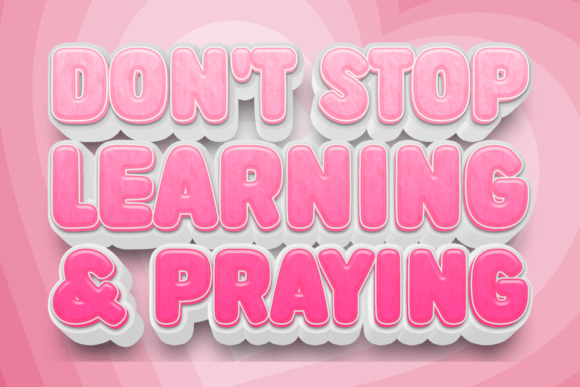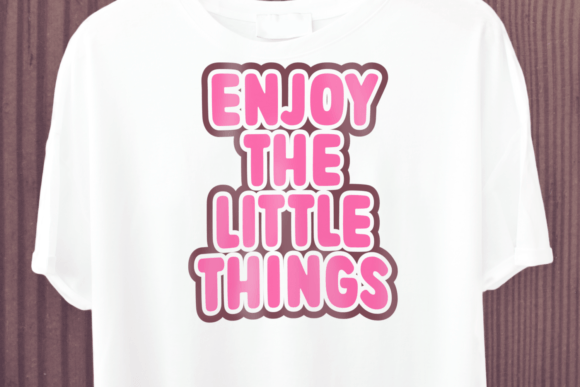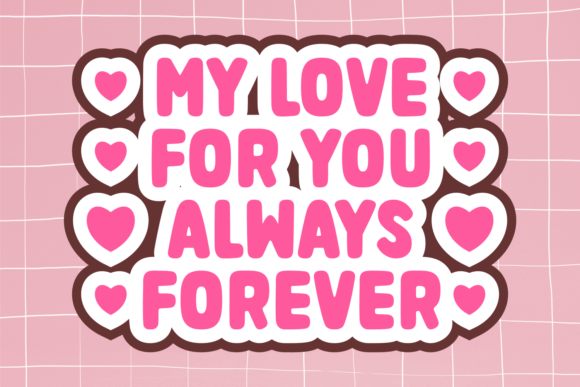
Unlock the Whimsy in Your Designs with Catch Loves Font
Have you ever stared at a blank canvas, trying to conjure up the perfect font to capture the essence of your creative vision? For designers, finding that elusive ‘wow’ factor can be a challenge. But what if I told you that there’s a font that’s sure to bring a smile to your face and add a dash of whimsy to your designs?
Meet Catch Loves Font, a delightful display font that combines cheerful charm with comic style. Its bold, thick, and chunky design makes it perfect for headlines, titles, and children’s events. This font is not just cute, but also powerfully playful, with a strong and joyfully jubilant persona that’s sure to captivate your audience. Whether you’re designing apparel, creating a logo, or simply looking for a font that adds a touch of magic to your work, Catch Loves Font is an optimal choice that’s sure to make your designs stand out.
Catch Loves Font Key Features
- Font Family: Catch Loves Font is a sans-serif font family designed for digital use, ideal for headings and body text.
- Unique Characteristics: Catch Loves Font features a modern and clean design, with a focus on legibility and readability. The font family includes a wide range of weights and styles, from light to bold, to cater to various design needs.
Catch Loves Font Review
As a designer, I was excited to dive into “Catch Loves Font” and see what it had to offer. Here’s my honest review:
- The font has a unique and playful vibe that’s perfect for creative projects.
- The character set is well-designed and includes a wide range of glyphs, making it suitable for a variety of languages.
- The font is highly customizable, with plenty of options for adjusting weight, width, and style.
- The font may not be suitable for formal or professional projects, as it has a more casual and playful feel.
- The font’s readability can be affected at smaller text sizes, which may require additional adjustments.
- The font may not be as versatile as some other fonts, limiting its use in certain design contexts.
Overall, I think “Catch Loves Font” is a great addition to any designer’s toolkit. While it may have some limitations, its unique charm and versatility make it a great choice for creative projects. With some careful consideration and customization, I think this font has the potential to add a lot of personality to your designs.
Tips for Getting the Most Out of Catch Loves Font
1. Experiment with different font sizes and colors to create visual interest.
2. Use the font in combination with other design elements to create a cohesive look.
3. Consider using the font in a bold or italic style to add emphasis.
Catch Loves Font is ideal for use in wedding invitations, social media graphics, and marketing materials. Its elegant and playful style makes it perfect for conveying a sense of love and connection.